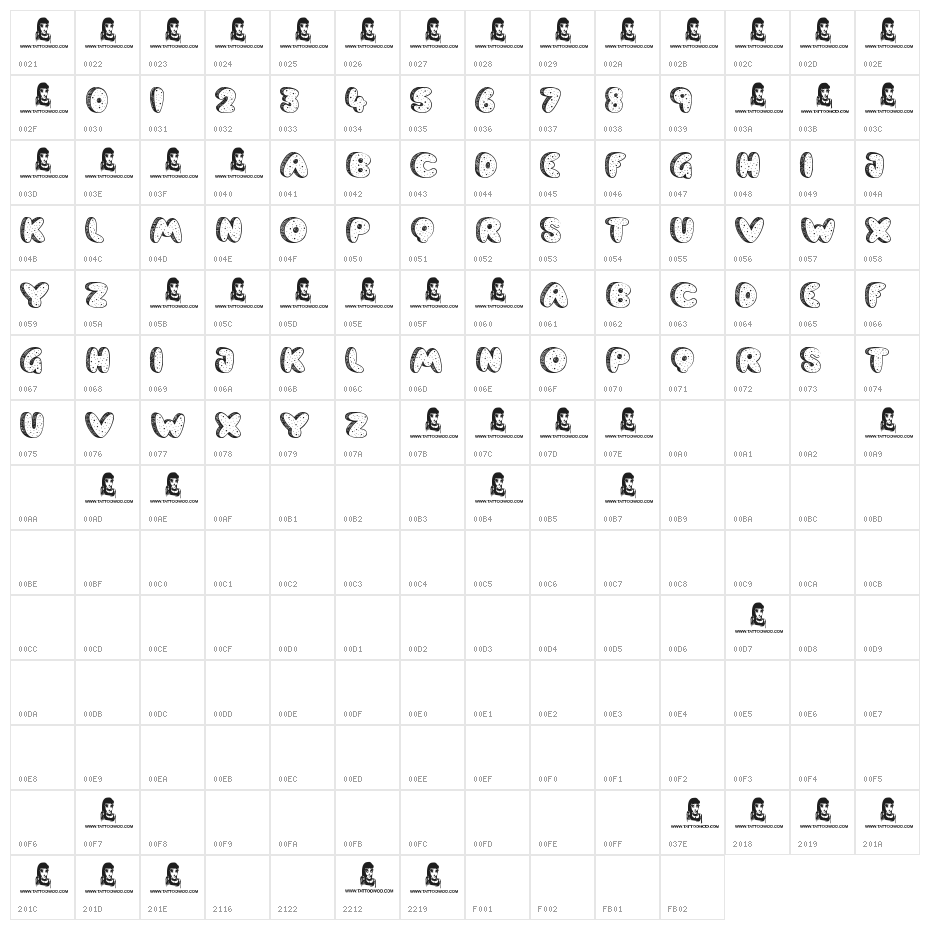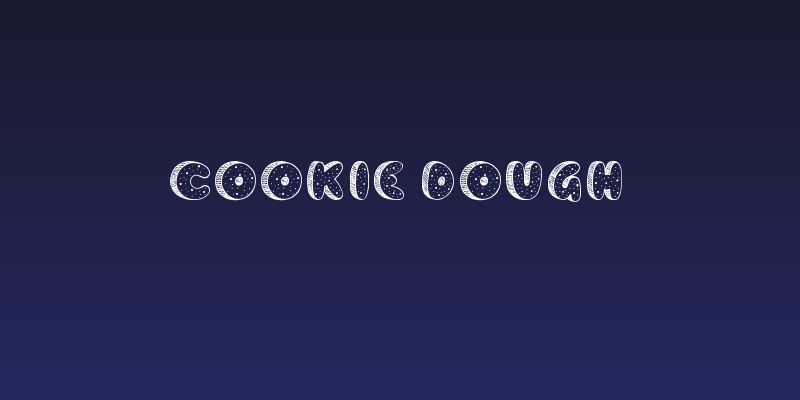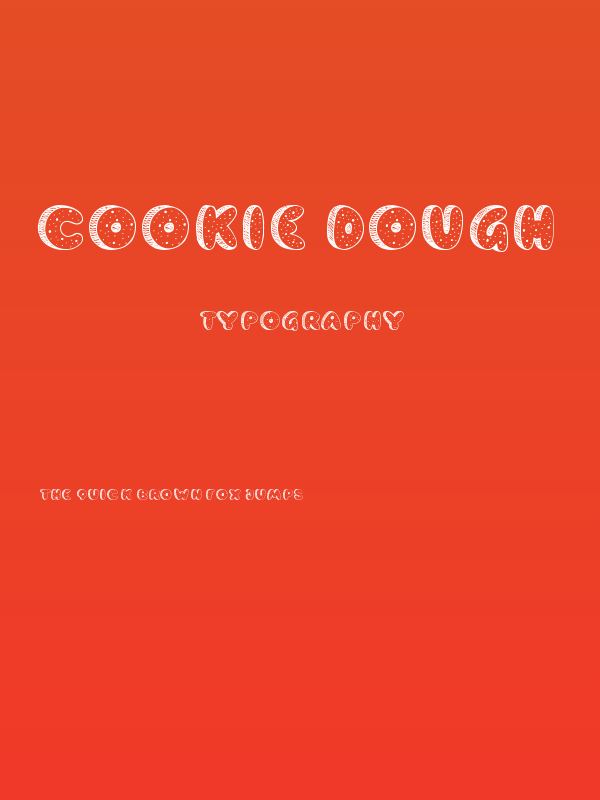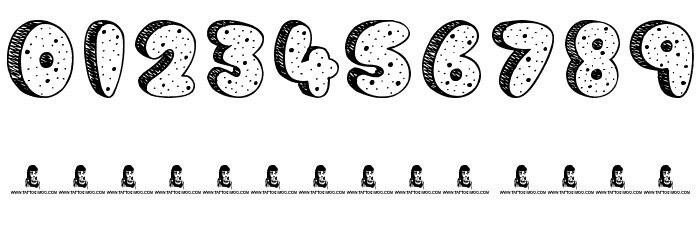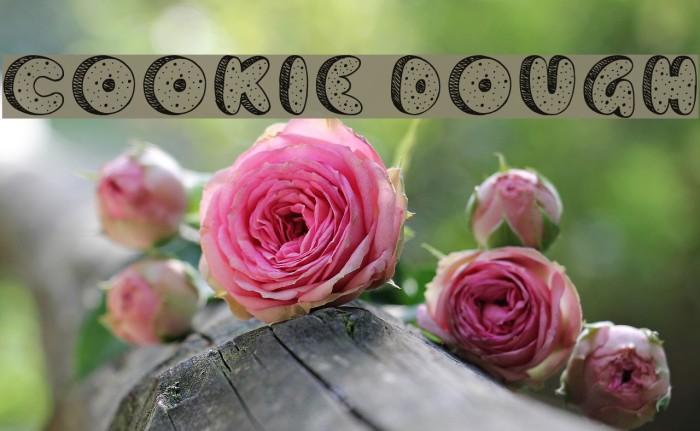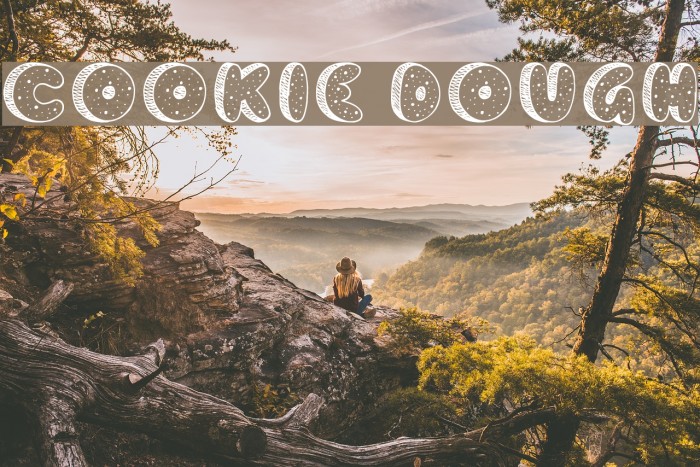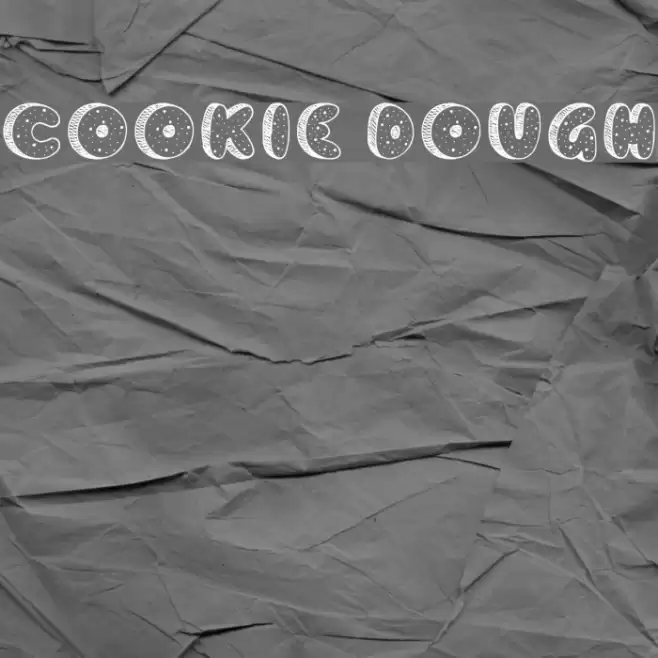
Cookie Dough Font
Cookie Dough Description
This playful and whimsical font features bold, rounded letters with a textured, dotted pattern reminiscent of cookie dough. Each character is designed with a sense of fun and creativity, making it perfect for projects that require a lighthearted and engaging aesthetic. The font's unique style captures attention with its decorative elements, while maintaining readability. Its bubbly appearance is ideal for children's materials, playful branding, or any design that seeks to evoke a sense of joy and imagination.
| Overall Style | Playful, Whimsical |
| Proposed Projects | Ideal for children's books, playful branding, party invitations, and creative posters. |